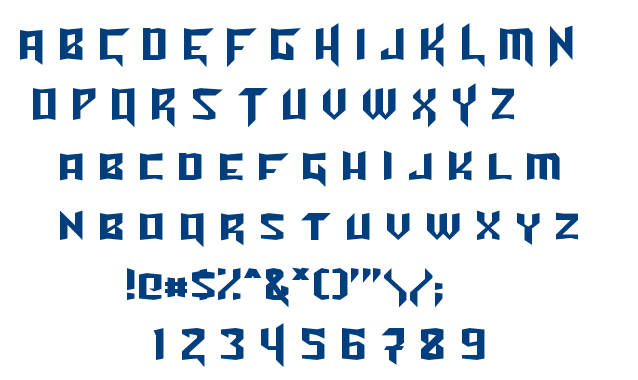
Tiny Small Medium Large Turok font Neale Davidson Website Turok.ttf Download 1219 downloads Freeware Category: Gothic » Modern TTF – Turok Based on the logo of the “Turok” video game franchise. This is a maintenance release. Character Map specimen sheet